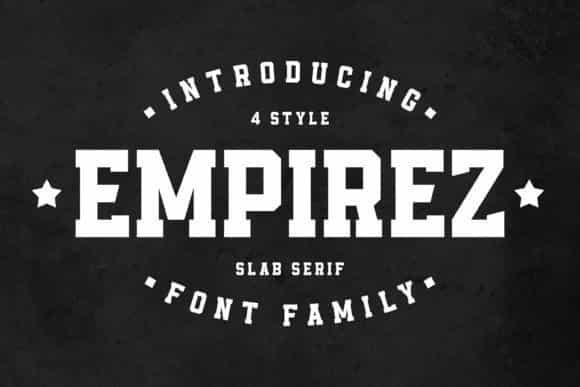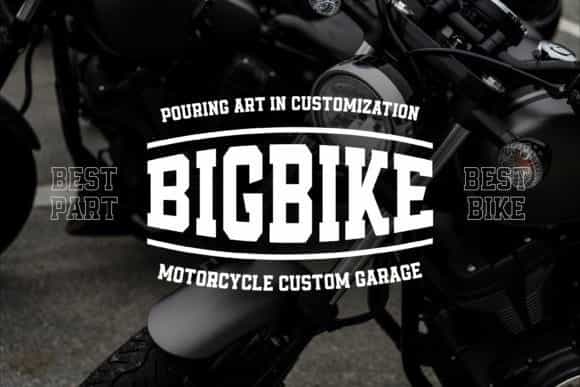
Empirez is a Slab Serif Font design to give a modern look with the retro style, This font was made with usability and clarity in mind. Empirez is a heavy and daring slab serif font that seems to be constantly in motion.